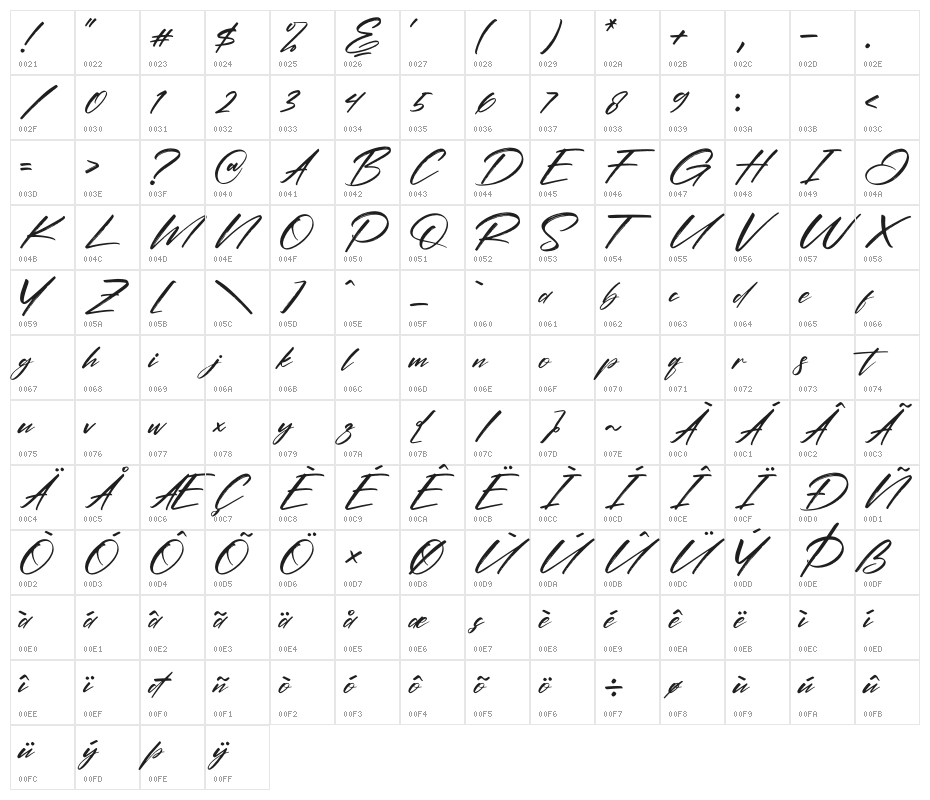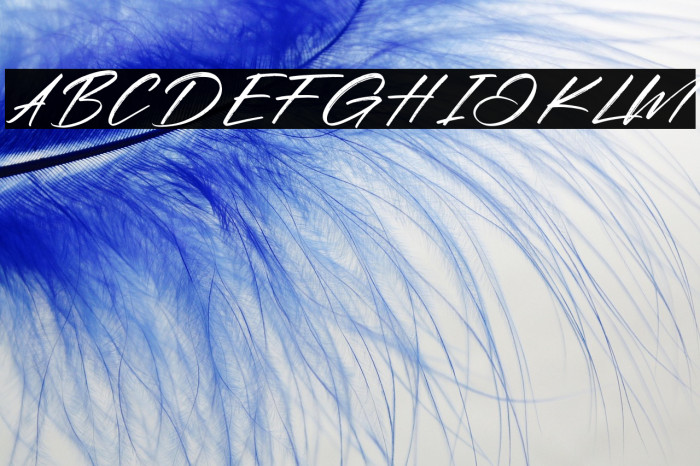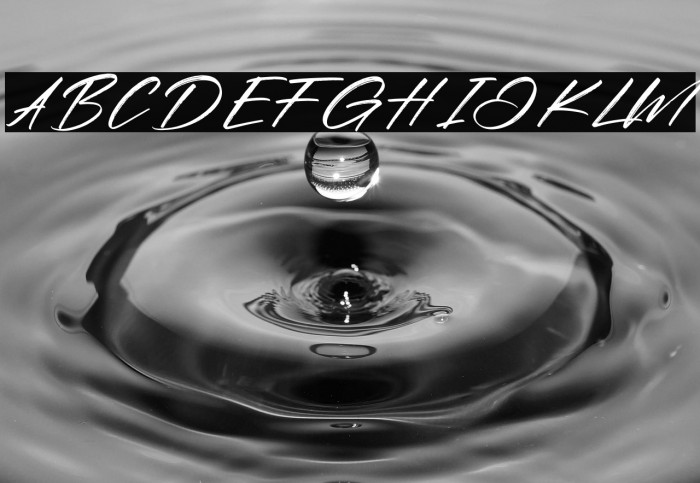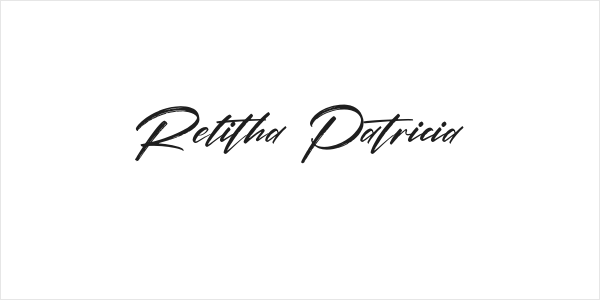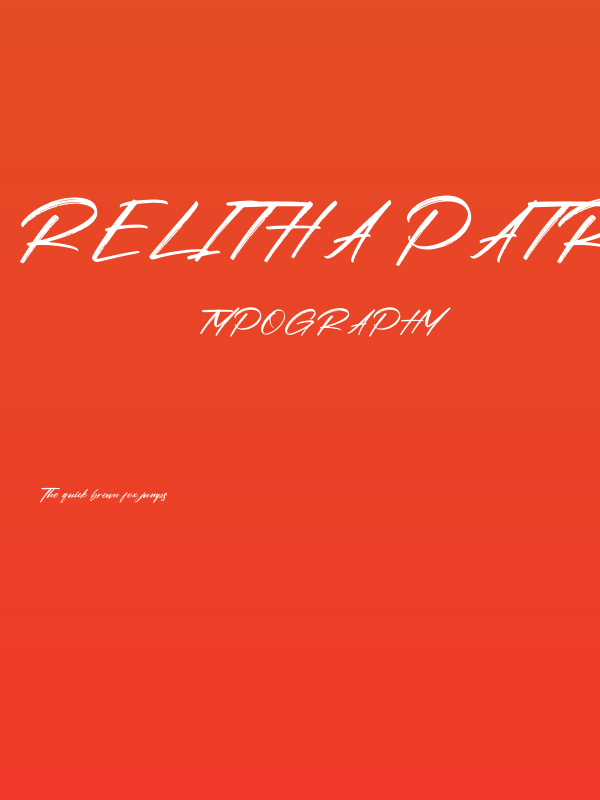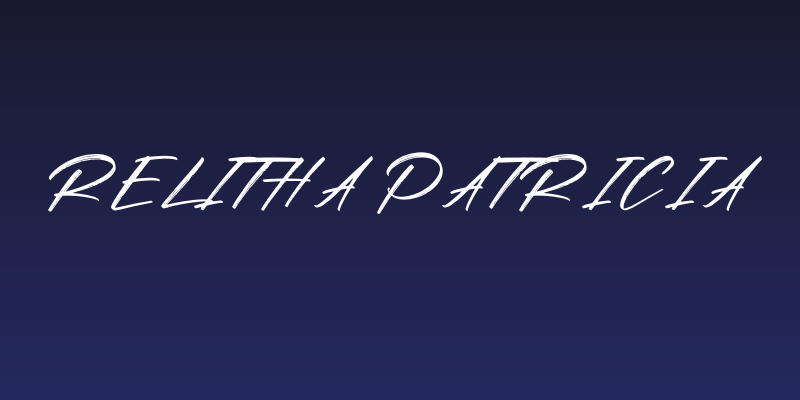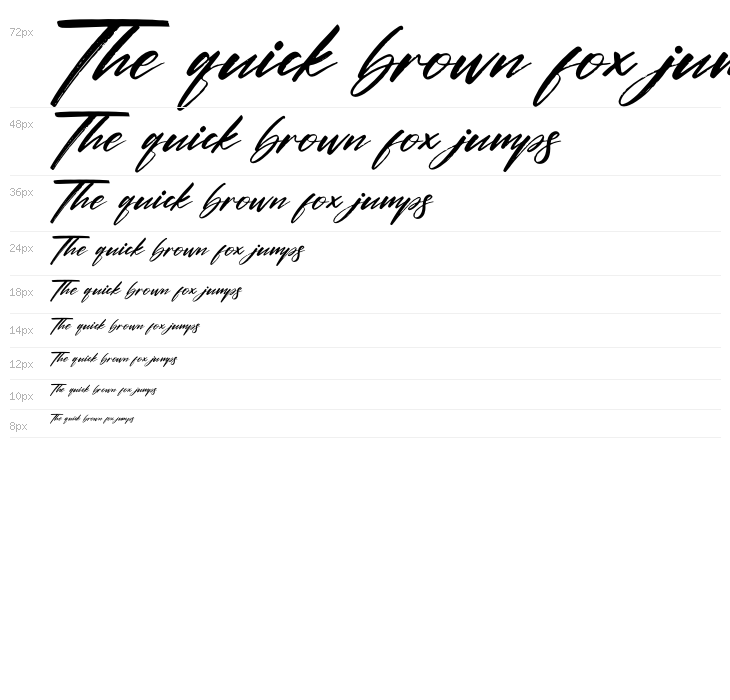
Relitha Patricia Font
Relitha Patricia Description
This font exudes a dynamic and elegant script style, characterized by its fluid, cursive strokes that mimic natural handwriting. The uppercase letters are bold and slightly slanted, giving a sense of movement and grace. The lowercase letters maintain a consistent flow, with smooth connections between each character, enhancing readability while retaining an artistic flair. Numbers and special characters follow the same cursive style, ensuring uniformity across all elements. The overall design is sophisticated, making it suitable for projects that require a personal touch or a sense of luxury.